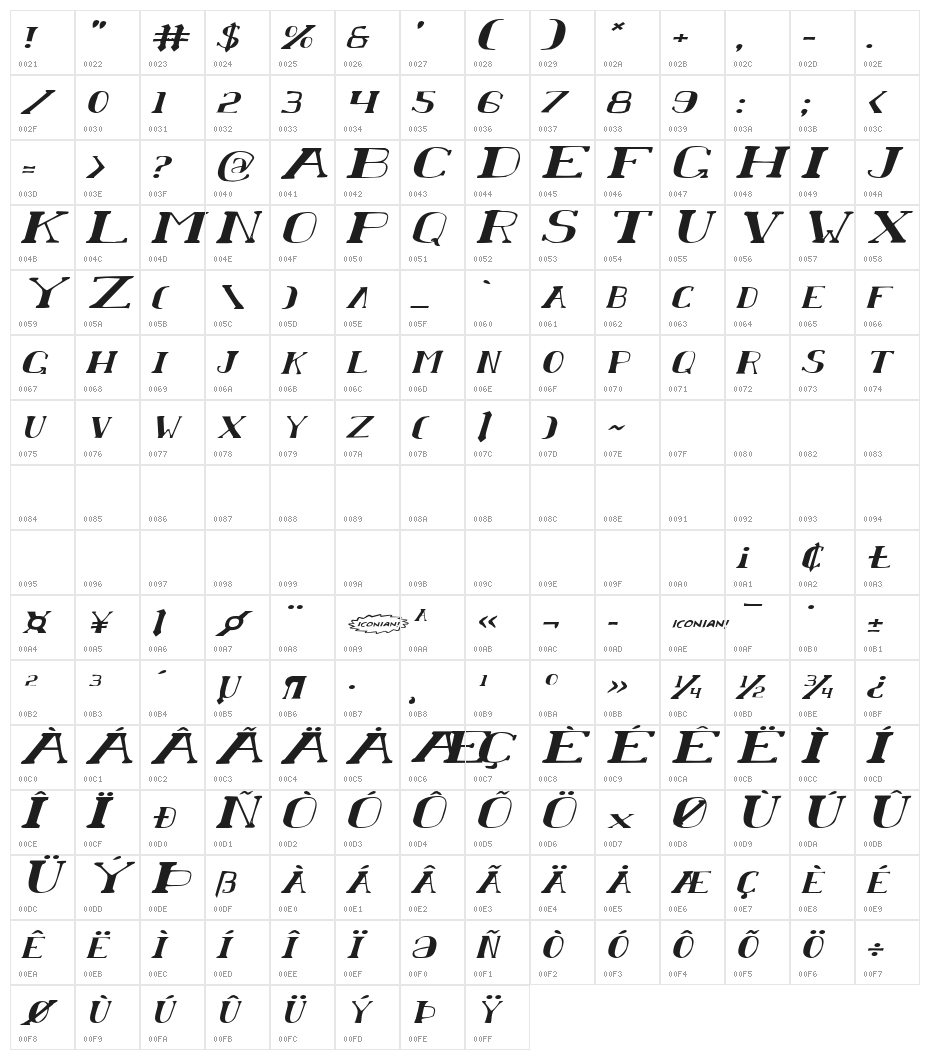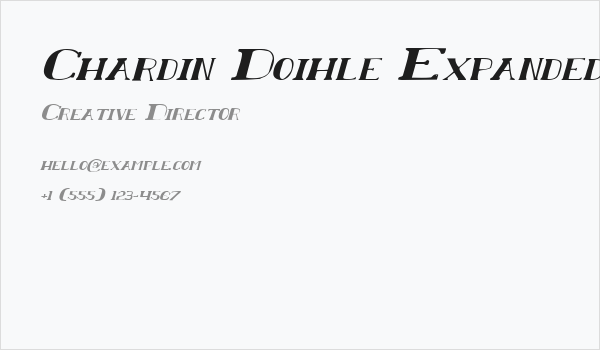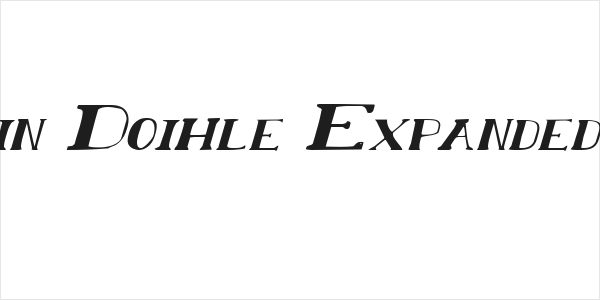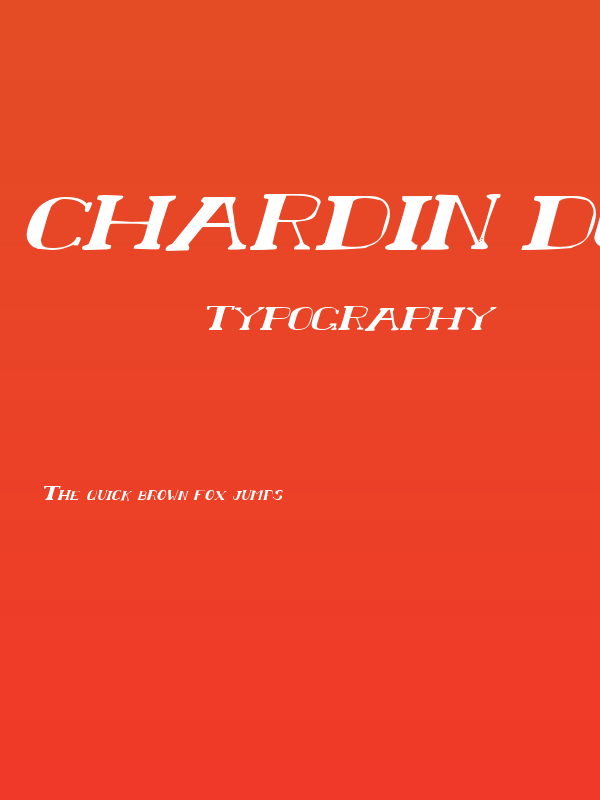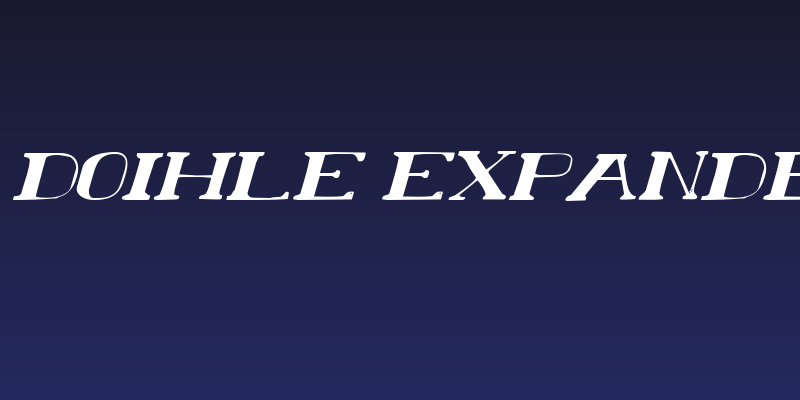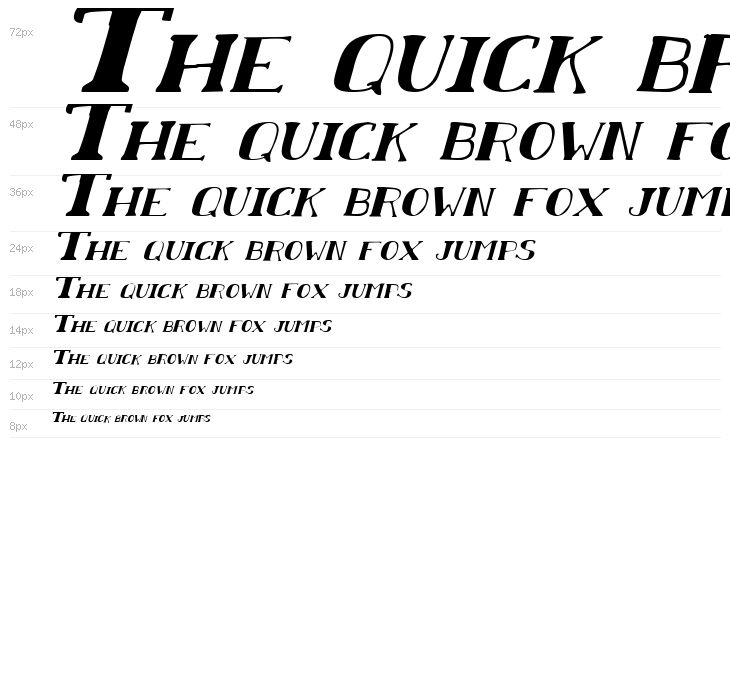
Chardin Doihle Expanded Italic Font
Chardin Doihle Expanded Italic Description
This font features a dynamic and elegant style with a pronounced italic slant, giving it a sense of motion and sophistication. The characters are expanded, providing a wide stance that enhances readability while maintaining a stylish flair. The strokes are bold and consistent, with moderate contrast between thick and thin lines, adding to its visual appeal. The design is modern yet retains a classic touch, making it versatile for various applications. The spacing between characters is normal, ensuring clarity and legibility across different sizes. This font is well-suited for projects that require a touch of elegance and modernity.
| Proposed Projects | Ideal for branding, headlines, posters, and elegant invitations. |